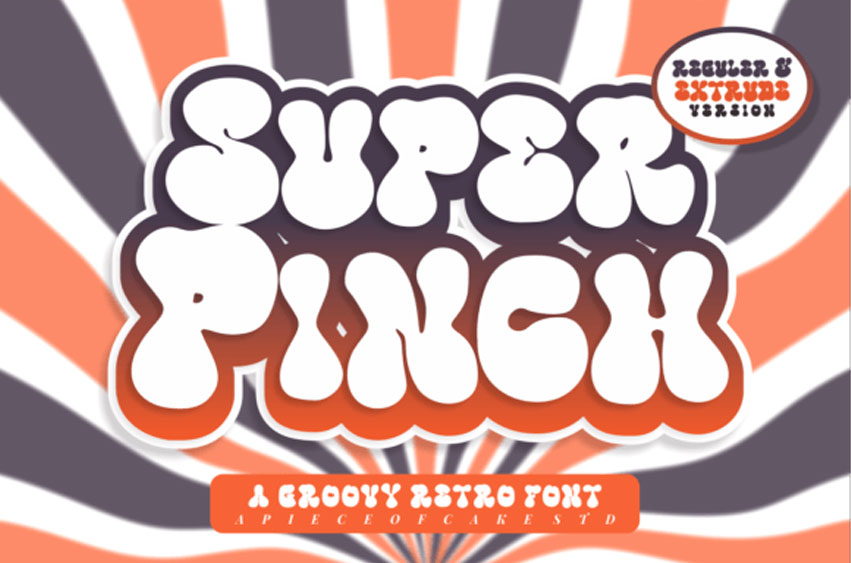
Super Pinch Font
Super Pinch Font is a versatile, stylish, and playful retro display font perfect for a wide spectrum of applications such as greeting cards, headlines, and many more!
Add it to any of your creative projects, and it will give them a romantic and exquisite feel.